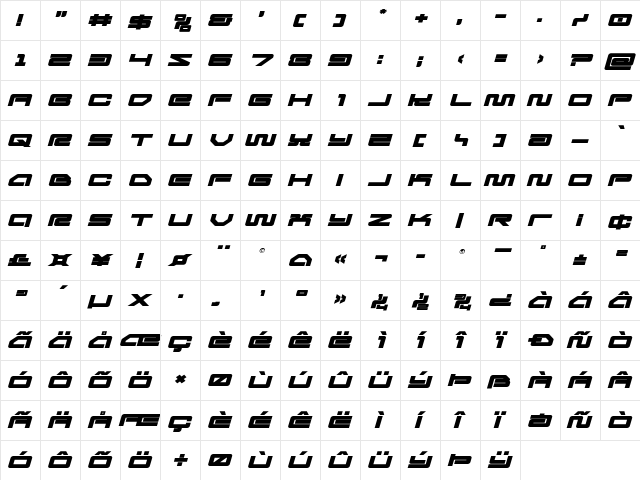
Ranger Force Expanded Italic Regular
Design Context for Ranger Force Expanded Italic Typeface
Ranger Force Expanded Italic brings high-energy athletic personality to the page — its confident, muscular forms are built for impact. The slanted form adds forward momentum and visual energy.
Built for sports team identities, athletic apparel, event posters, and high-energy promotional material.
Pro Tip: Ranger Force Expanded Italic thrives on contrast — try it large, bold, and tight against a clean background for maximum visual impact.